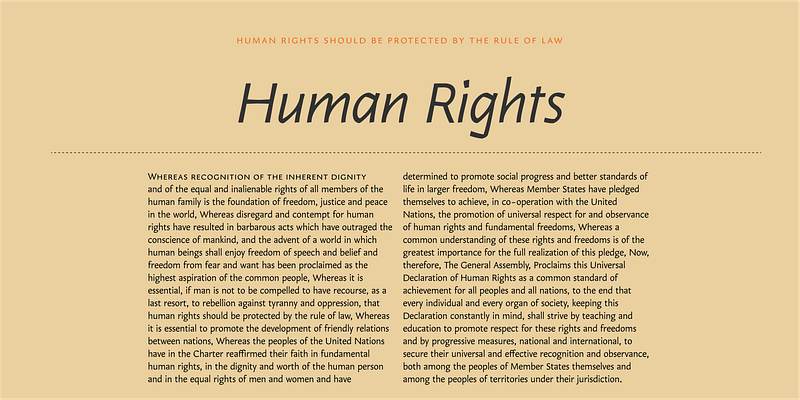
Karol Sans Font Free Download
Karol Sans Font Free Download is a contemporary sans-serif typeface known for its clean geometry, subtle humanist touches, and excellent legibility. Designed for both functionality and aesthetics, Karol Sans is ideal for branding, editorial design, digital interfaces, corporate communication, and minimalist layouts that require clarity and elegance.
The font’s modern structure makes it versatile across various weights and sizes—whether you need a refined look for body text or a bold, striking presence for headlines. Karol Sans maintains consistency and balance, making it suitable for both print and screen use.